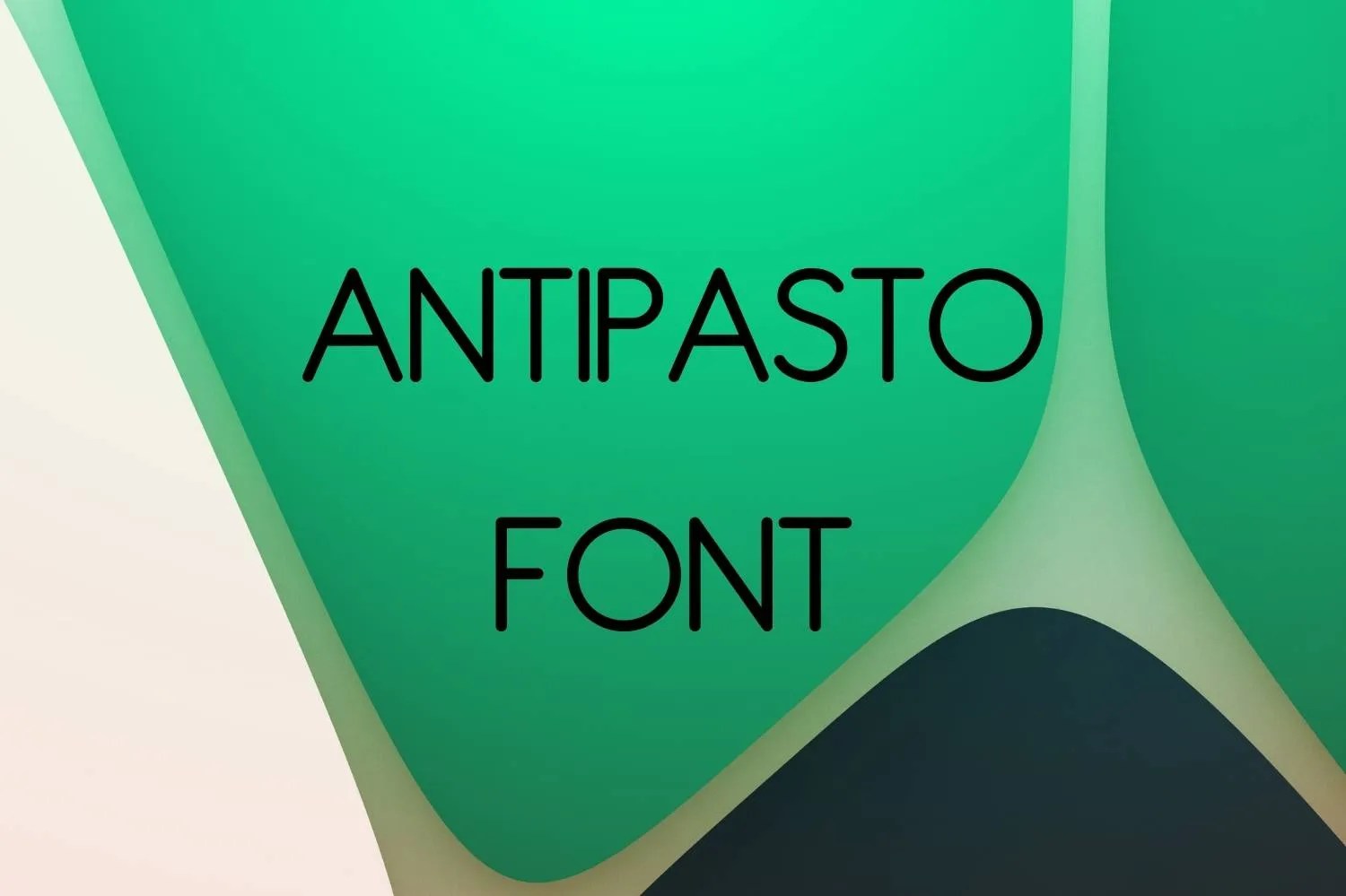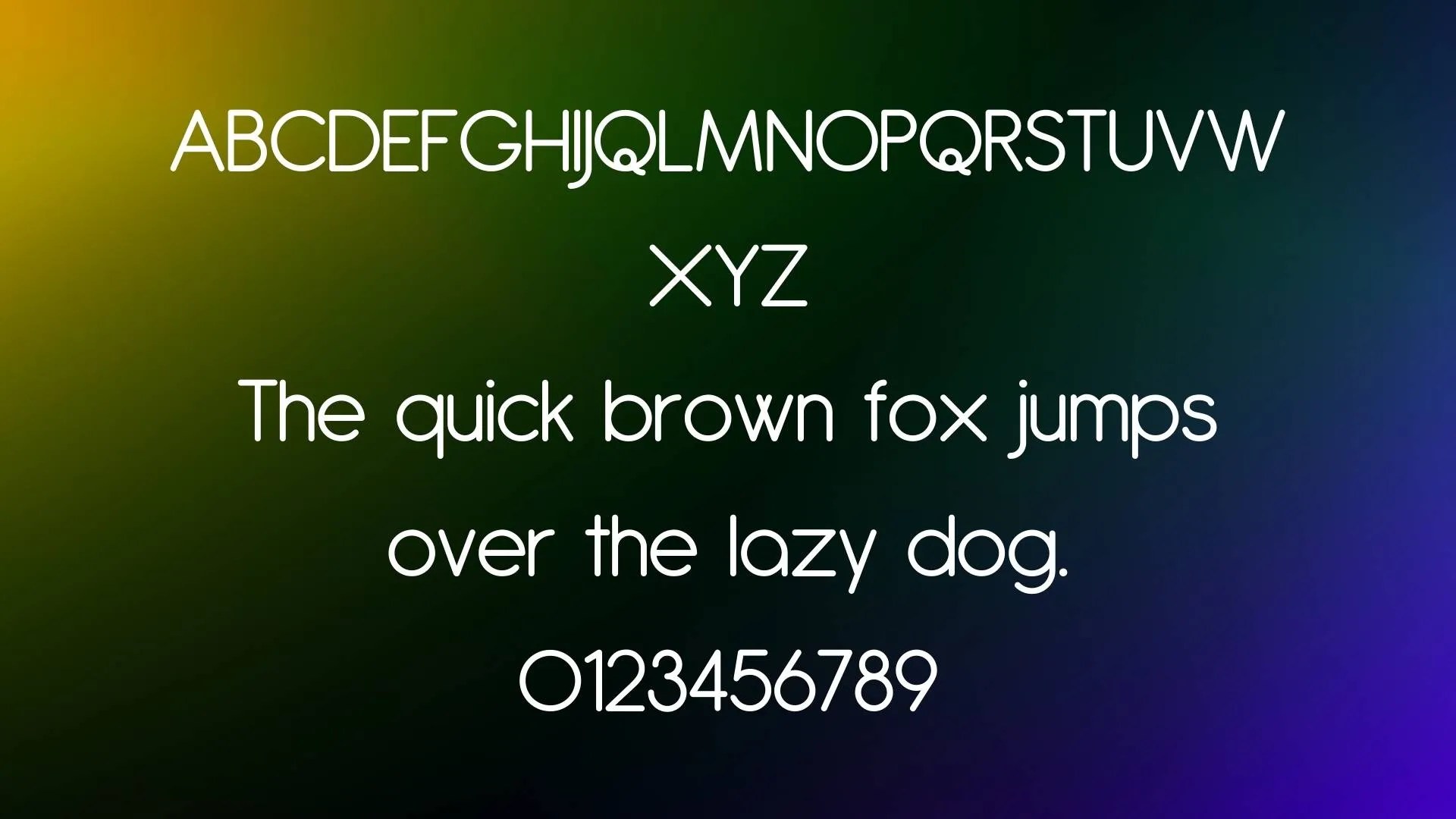
Antipasto Regular Font Free Download . Antipasto is a geometric sans serif font designed by cosimo lorenzo pancini. Antipasto font is available for free download for noncommercial,. The original family of three weights has been revised and expanded in 2017. Download antipasto pro font family · free for personal use · this trial font is totally free for noncommercial uses. Antipasto is a soft round font and really smart, created by cosimo lorenzo pancini. It is coordinated, compatible and based on arista font collection by zetafonts. The antipasto font has been downloaded 33,931 times. Antipasto is a geometric sans serif font designed by cosimo lorenzo pancini. Download antipasto regular for free. View sample text, character map, user rating and review for antipasto regular Download and install the antipasto font by zetafonts.
Antipasto is a geometric sans serif font designed by cosimo lorenzo pancini. Antipasto is a soft round font and really smart, created by cosimo lorenzo pancini. Antipasto is a geometric sans serif font designed by cosimo lorenzo pancini. Download antipasto regular for free. Download antipasto pro font family · free for personal use · this trial font is totally free for noncommercial uses. View sample text, character map, user rating and review for antipasto regular The antipasto font has been downloaded 33,931 times. Download and install the antipasto font by zetafonts. Antipasto font is available for free download for noncommercial,. It is coordinated, compatible and based on arista font collection by zetafonts.
Antipasto Regular Font Free Download The original family of three weights has been revised and expanded in 2017. View sample text, character map, user rating and review for antipasto regular The antipasto font has been downloaded 33,931 times. It is coordinated, compatible and based on arista font collection by zetafonts. Antipasto font is available for free download for noncommercial,. Download antipasto regular for free. Antipasto is a geometric sans serif font designed by cosimo lorenzo pancini. The original family of three weights has been revised and expanded in 2017. Download and install the antipasto font by zetafonts. Download antipasto pro font family · free for personal use · this trial font is totally free for noncommercial uses. Antipasto is a soft round font and really smart, created by cosimo lorenzo pancini. Antipasto is a geometric sans serif font designed by cosimo lorenzo pancini.
Antipasto Pro Font Family Free Download Antipasto Regular Font Free Download Antipasto font is available for free download for noncommercial,. The antipasto font has been downloaded 33,931 times. Download and install the antipasto font by zetafonts. It is coordinated, compatible and based on arista font collection by zetafonts. View sample text, character map, user rating and review for antipasto regular Download antipasto pro font family · free for personal use ·. Antipasto Regular Font Free Download.
Antipasto Icons Regular Free Font Download MaisFontes Antipasto Regular Font Free Download antipasto regular for free. View sample text, character map, user rating and review for antipasto regular Antipasto is a geometric sans serif font designed by cosimo lorenzo pancini. Antipasto font is available for free download for noncommercial,. Download antipasto pro font family · free for personal use · this trial font is totally free for noncommercial uses. Antipasto is. Antipasto Regular Font Free Download.
Antipasto Font Free Download Antipasto Regular Font Free Download antipasto regular for free. Antipasto is a geometric sans serif font designed by cosimo lorenzo pancini. Antipasto font is available for free download for noncommercial,. The original family of three weights has been revised and expanded in 2017. Antipasto is a geometric sans serif font designed by cosimo lorenzo pancini. Antipasto is a soft round font and really smart,. Antipasto Regular Font Free Download.
Antipasto Font Free Download Antipasto Regular Font Free Download Antipasto is a soft round font and really smart, created by cosimo lorenzo pancini. Antipasto font is available for free download for noncommercial,. Antipasto is a geometric sans serif font designed by cosimo lorenzo pancini. It is coordinated, compatible and based on arista font collection by zetafonts. The antipasto font has been downloaded 33,931 times. Download antipasto pro font family. Antipasto Regular Font Free Download.
Download free Antipasto Regular font Antipasto.ttf Antipasto Regular Font Free Download Antipasto font is available for free download for noncommercial,. Download and install the antipasto font by zetafonts. Download antipasto regular for free. It is coordinated, compatible and based on arista font collection by zetafonts. The antipasto font has been downloaded 33,931 times. Antipasto is a geometric sans serif font designed by cosimo lorenzo pancini. Antipasto is a geometric sans serif. Antipasto Regular Font Free Download.
Antipasto Font Antipasto Regular Font Free Download The antipasto font has been downloaded 33,931 times. Antipasto is a geometric sans serif font designed by cosimo lorenzo pancini. Download antipasto regular for free. Download and install the antipasto font by zetafonts. View sample text, character map, user rating and review for antipasto regular It is coordinated, compatible and based on arista font collection by zetafonts. Antipasto is a. Antipasto Regular Font Free Download.
Antipasto Font Free Download Antipasto Regular Font Free Download The antipasto font has been downloaded 33,931 times. Antipasto font is available for free download for noncommercial,. View sample text, character map, user rating and review for antipasto regular Download antipasto regular for free. Download antipasto pro font family · free for personal use · this trial font is totally free for noncommercial uses. It is coordinated, compatible and based. Antipasto Regular Font Free Download.
Free font "Antipasto" by Zetafonts Antipasto Regular Font Free Download The antipasto font has been downloaded 33,931 times. Antipasto is a soft round font and really smart, created by cosimo lorenzo pancini. Download antipasto regular for free. Antipasto font is available for free download for noncommercial,. View sample text, character map, user rating and review for antipasto regular Antipasto is a geometric sans serif font designed by cosimo lorenzo pancini.. Antipasto Regular Font Free Download.